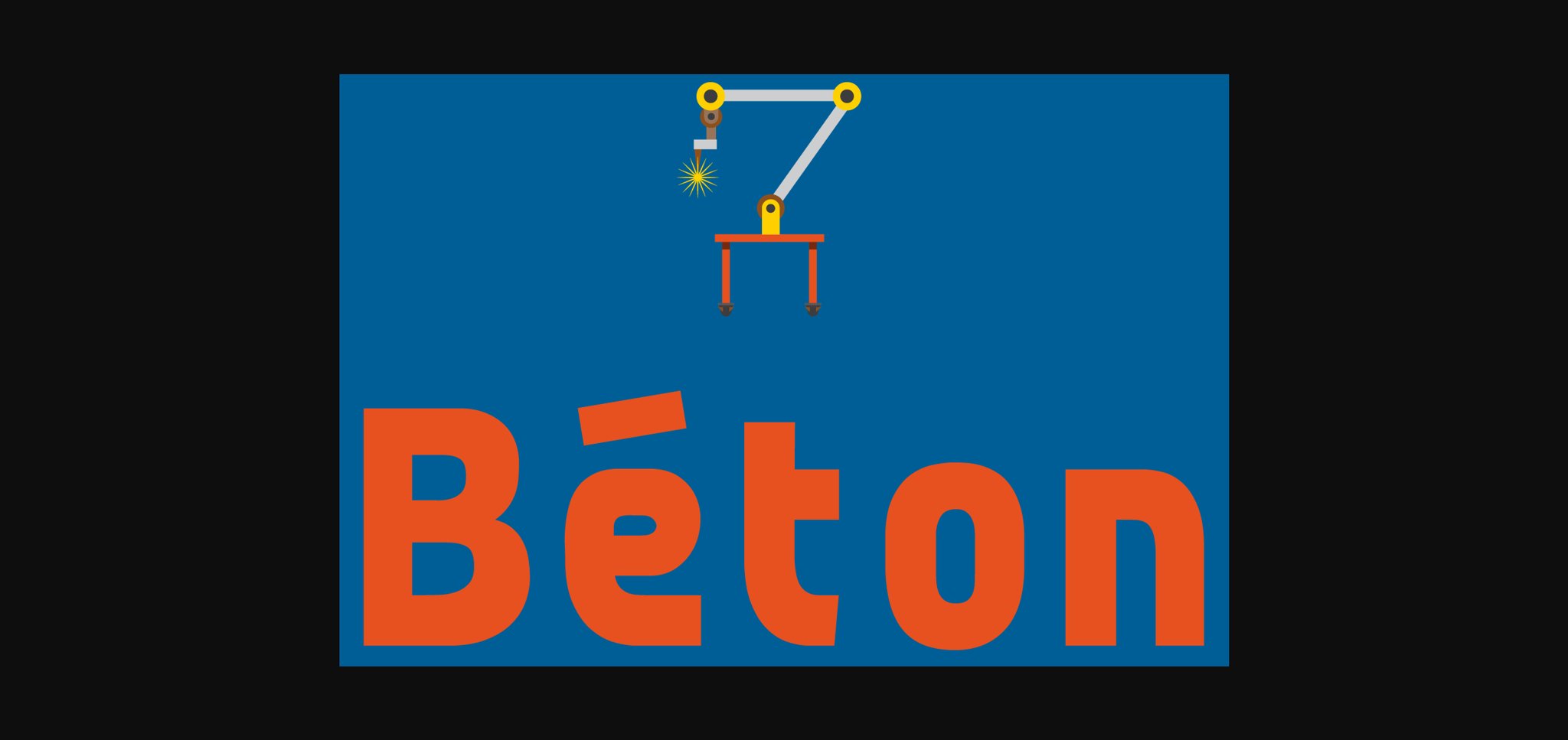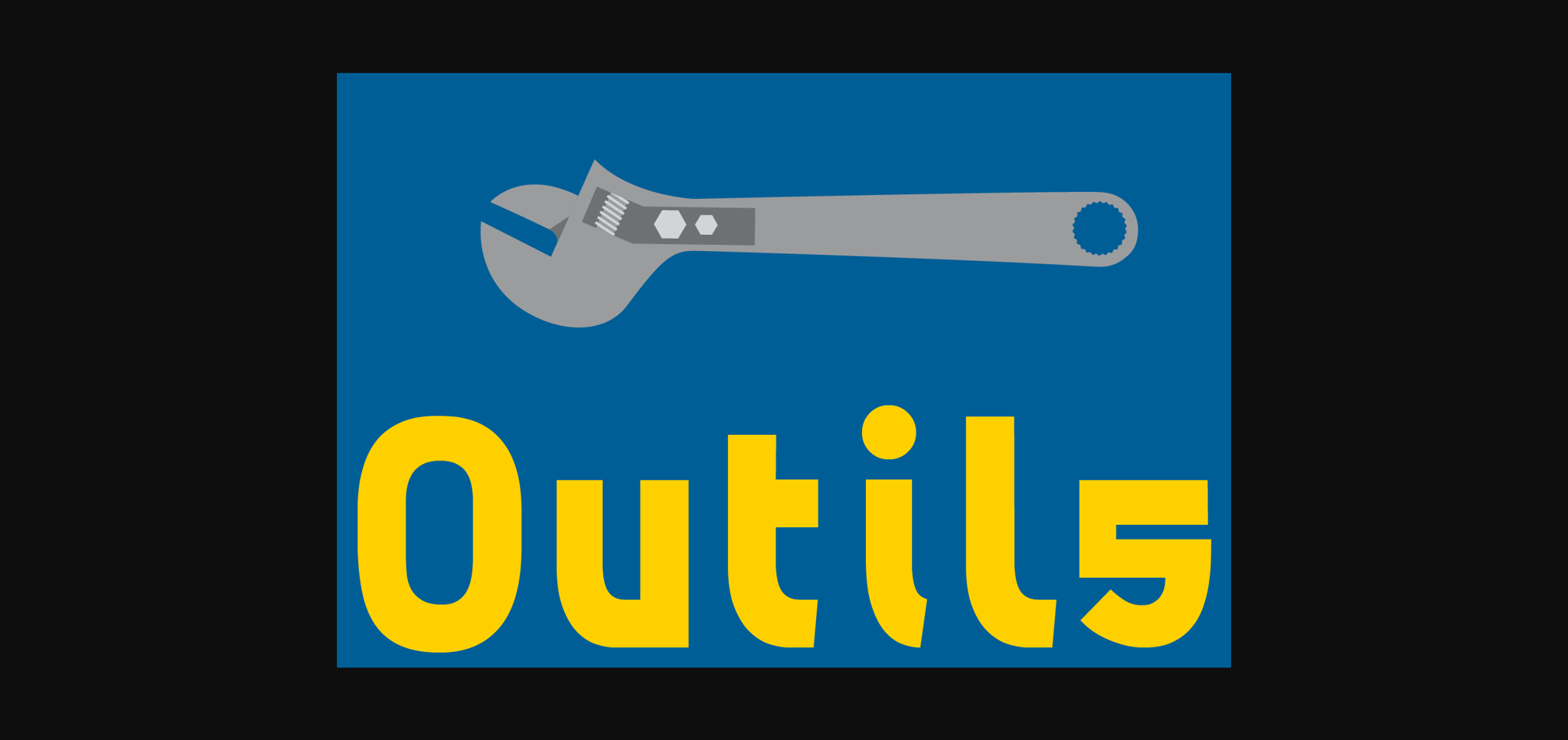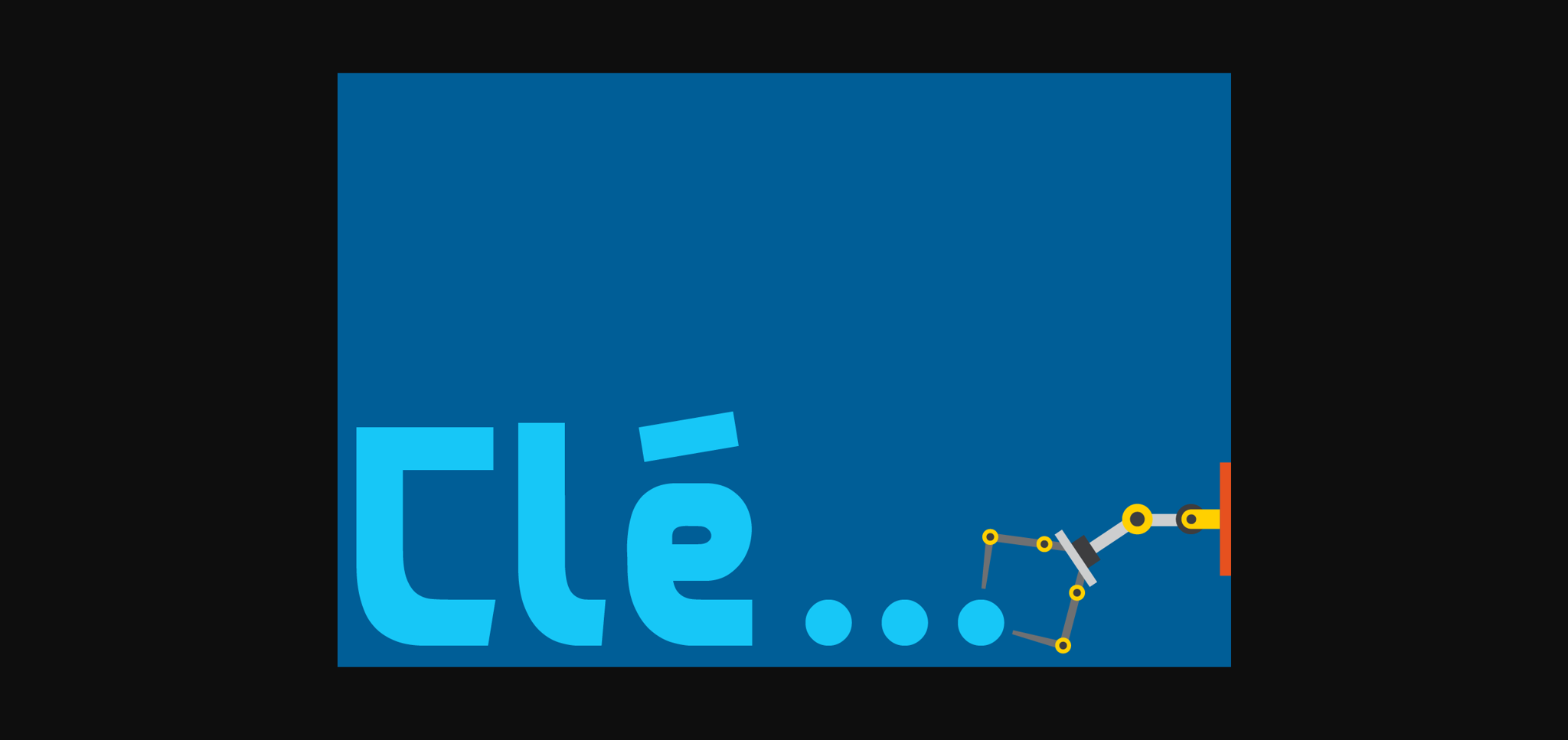
HomeSans Serif FontsBéton Font Sans Serif Fonts Béton Font FacebookXPinterestWhatsApp 1 of 5 ... Béton Font Poster 2... Béton Font Poster 3... Béton Font Poster 4... Béton Font Poster 5... About Béton Font Béton is a simple set of 121 bold signs based on elementary shapes with a mix of round & square corners. DOWNLOAD NOW People also explored Snow Pile Font Starlight Font Signastia Font Rosallia Button Font Valentina Font Blustina Script and Extras Blue Triblend Bella Canvas 134B Mockup Highlight Font Coal Cliff Font 304 0 TagsBétonBeton Font Previous articleHiroshima FontNext articleTwice Pro Font LEAVE A REPLY Cancel reply Comment: Please enter your comment! Name:* Please enter your name here Email:* You have entered an incorrect email address! Please enter your email address here Website: Save my name, email, and website in this browser for the next time I comment. Personal Use Free Alinda Personal Use Free Read more about this font Scarlove Personal Use Free Read more about this font Velasco Personal Use Free Read more about this font Budmo Personal Use Free Read more about this font BLOG Exploring Font Trends Shaping Communication in the Digital Era Fonts, like all design elements, are subject to trends. They play a crucial role in communicating a brand's personality,... Modern Sans-Serif Fonts That Brands Love in 2025 Free Fonts Risk: Why Free Fonts Can Be Dangerous for Designers Transform Your Website: Elevate Your Typography with 7 Best Web Font Generators